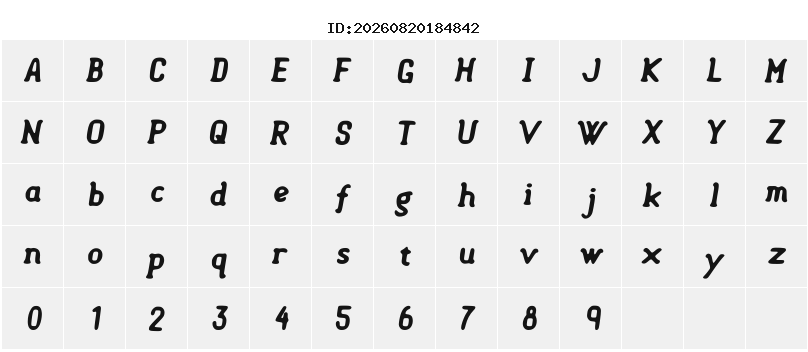
Semi-Sweet Preview
• Font Name: Semi-Sweet
• Font Style: Bold-Italic
• Font ID: Semi-Sweet-Bold-Italic-v0p2
• Full Font Name: Semi-Sweet Bold Italic
• Version: 0.2
• PostScript Name: SemiSweet-Bold-Italic
• Character Count: 236
• Designer: Walter E Stewart
About Semi-Sweet.ttf
Semi-Sweet.ttf is a modern, elegant sans-serif font designed for ultimate readability and visual harmony. Perfect for branding, headlines, web design, and print materials.